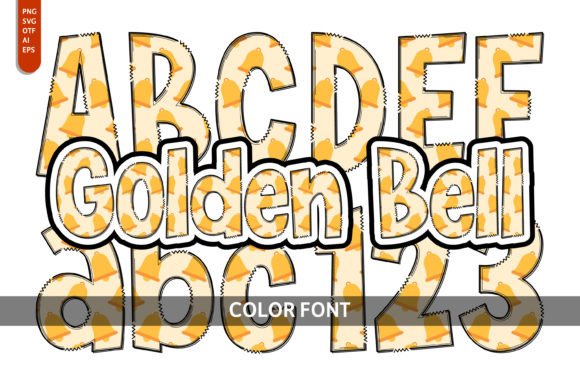
**Golden Bell: A Whimsical Symphony of Color and Joy**
Immerse yourself in a world of imagination and creativity with Golden Bell, a font family that captivates the senses with its playful spirit and vibrant hues. Designed by Imagination Switch, this font is not merely a collection of letters; it's an artistic masterpiece that transforms ordinary words into extraordinary expressions.
Step into a realm where whimsy meets elegance, where each character dances across the page with a unique charm. Golden Bell's colorful palette ignites the imagination, evoking a sense of wonder and delight. Let your creativity soar as you explore a spectrum of hues, from playful pastels to bold and vibrant shades.
With Golden Bell, your designs will come alive, capturing the hearts of young and old alike. Picture enchanting children's books that transport readers to magical lands, posters that burst with life and energy, invitations that promise unforgettable celebrations, and greeting cards that convey heartfelt messages with a touch of whimsy.
This font is more than just a visual treat; it's an experience. Its playful curves and cheerful strokes create an engaging reading experience, inviting readers to immerse themselves in the world you've created. Golden Bell is the perfect choice for capturing attention, sparking curiosity, and leaving a lasting impression.
So, unlock your imagination and embrace the magic of Golden Bell. Let your designs bloom with creativity, color, and joy. Whether you're designing for children's books, posters, invitations, greeting cards, or any other project that demands a touch of whimsy, Golden Bell is your perfect partner.